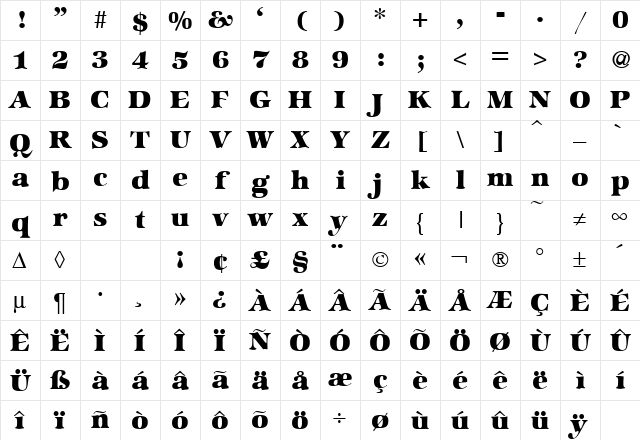
ZabriskieInternationalHeavy Regular
ZabriskieInternationalHeavy Family
Design Context for ZabriskieInternationalHeavy
ZabriskieInternationalHeavy is a composed and adaptable typeface that performs quietly and consistently across a wide range of design contexts.
Pro Tip: Use ZabriskieInternationalHeavy in both headline and body roles to test its range before committing to a single application.